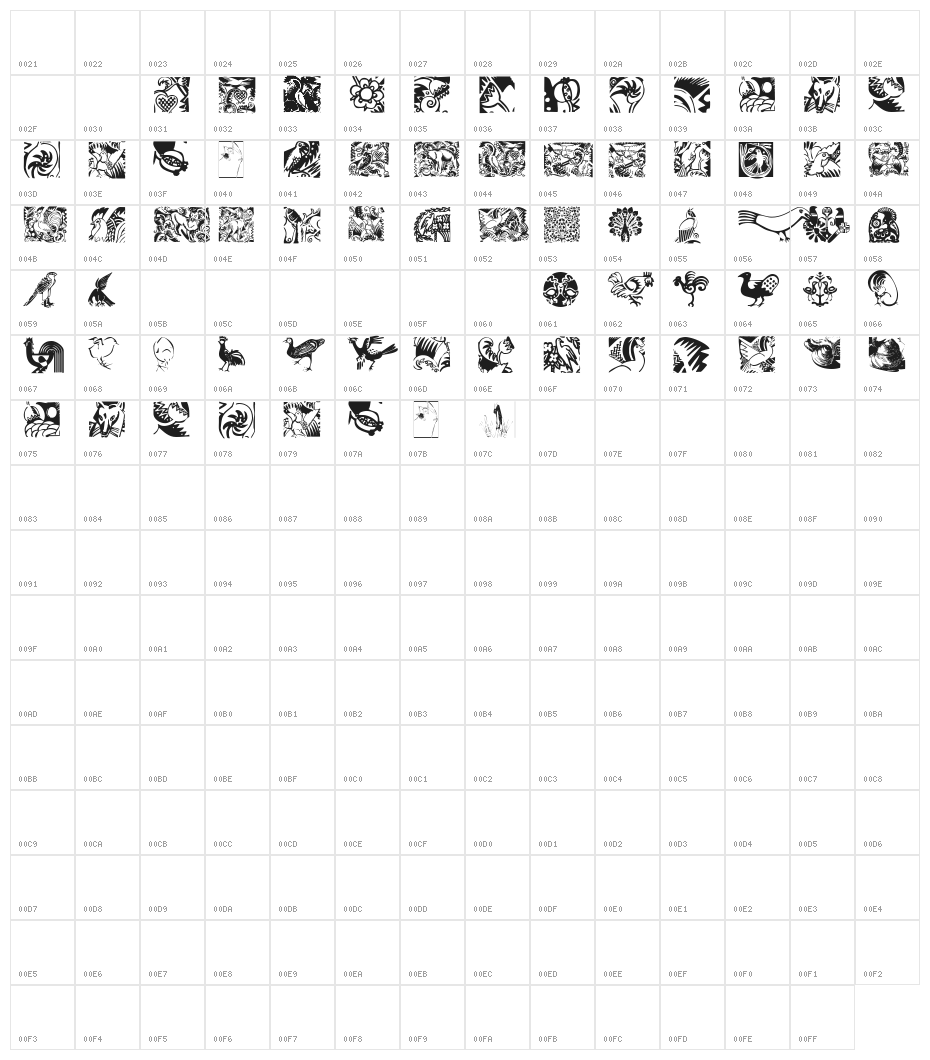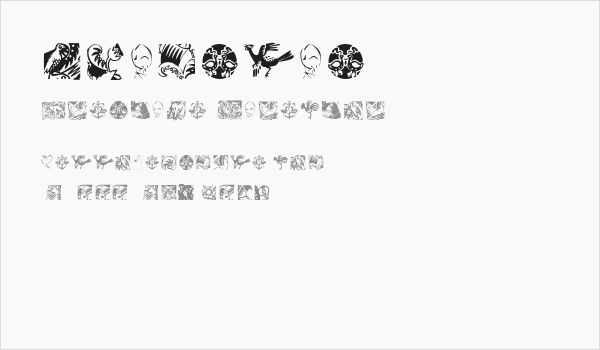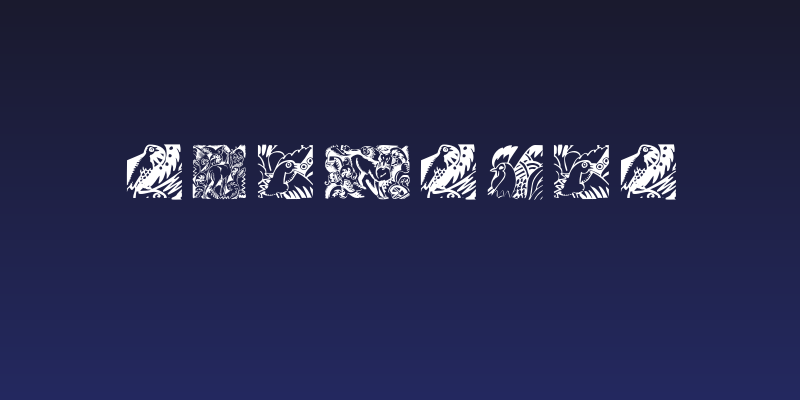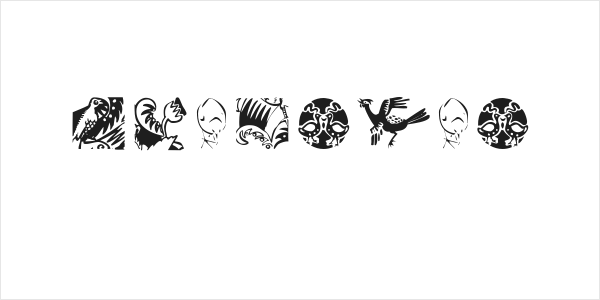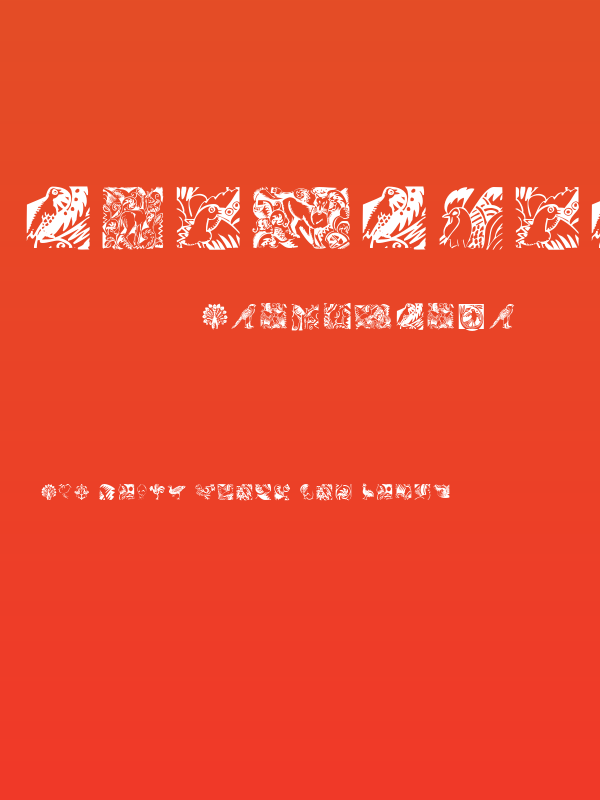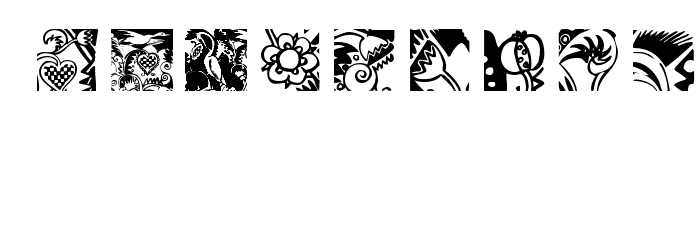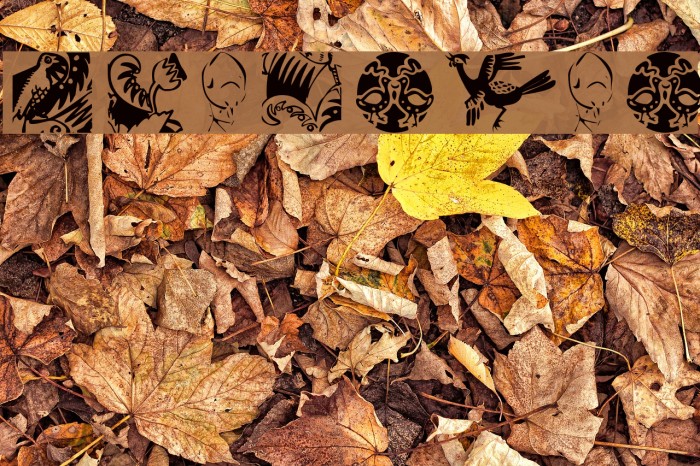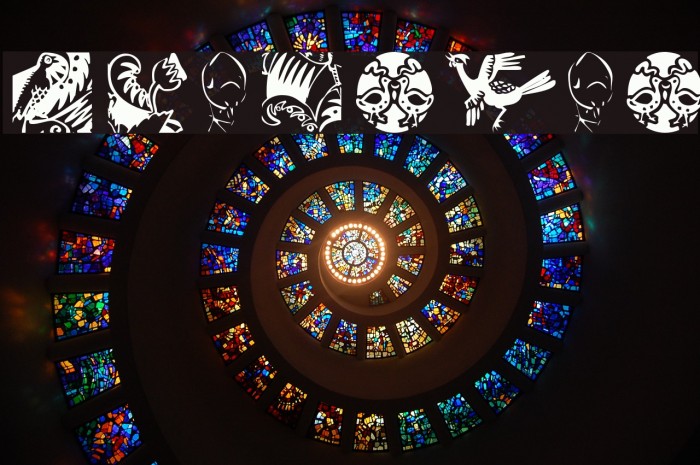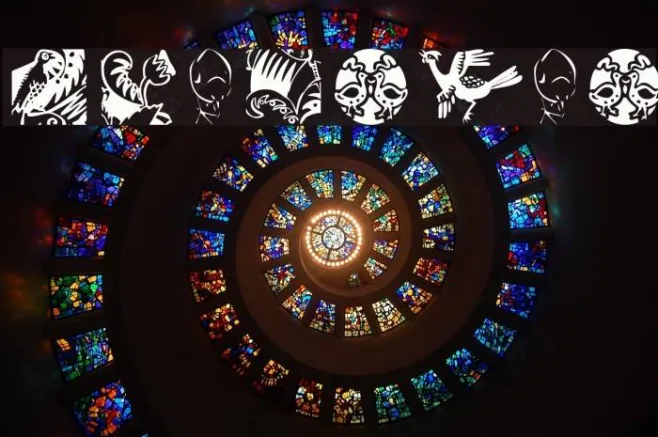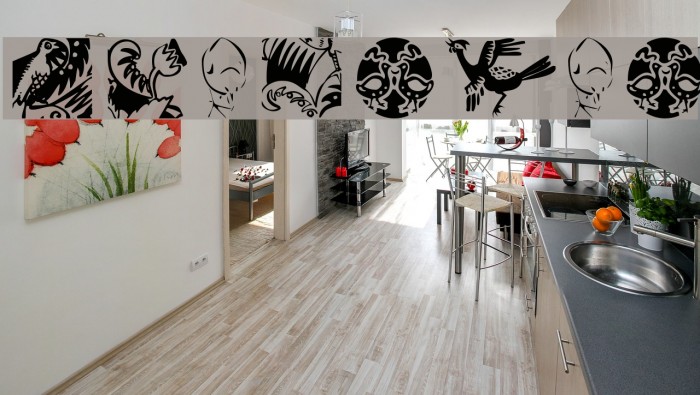
Animalia Font
Animalia Description
This collection features a series of intricate, decorative glyphs inspired by various animal motifs. Each character is a unique illustration, blending organic forms with artistic flair. The designs are highly detailed, showcasing a range of animals from birds to mythical creatures, each enclosed within a square frame. The style is reminiscent of traditional woodcuts or linocuts, with bold lines and high contrast between black and white. The overall aesthetic is both whimsical and sophisticated, making it suitable for creative and artistic projects.
| Use Case | Logos, Decorative prints, Artistic projects |
| Proposed Projects | Ideal for use in artistic projects such as posters, book covers, and decorative prints. Can also be used for branding elements that require a unique and artistic touch. |